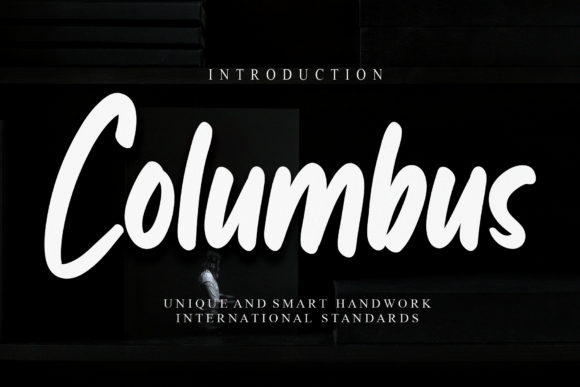
Introducing Columbus Font: The Ultimate Choice for Stunning Logos, Branding, and Quotes
Are you looking for a font that can add a touch of elegance and sophistication to your designs? Look no further than the Columbus Font. This lovely, cursive, and thick lettered handwritten font is the perfect choice for creating eye-catching logos, branding, and quotes that will leave a lasting impression on your audience.
The Unique Features of Columbus Font
What sets Columbus Font apart from other fonts is its unique and beautiful touch. Every letter has been carefully crafted to provide a distinctive and stylish look that will make your design come alive. The font’s cursive and thick lettered style gives it a luxurious and refined feel, making it perfect for high-end branding and designs.
The Benefits of Using Columbus Font
Using Columbus Font in your designs comes with a range of benefits. Here are just a few:
- Elegance and Sophistication: The Columbus Font adds a touch of elegance and sophistication to any design, making it perfect for high-end branding and luxury products.
- Unique and Memorable: The font’s unique and beautiful touch ensures that your design will stand out from the crowd and be remembered by your audience.
- Versatile: The Columbus Font is versatile and can be used for a range of designs, from logos and branding to quotes and social media graphics.
- Easy to Read: Despite its cursive style, the Columbus Font is easy to read, making it perfect for use in body text as well as headings.
How to Use Columbus Font in Your Designs
Using the Columbus Font in your designs is easy. Here are a few tips to get you started:
- Logos and Branding: Use the Columbus Font to create stunning logos and branding materials that will set your business apart from the competition.
- Quotes and Social Media Graphics: The font’s cursive style makes it perfect for use in quotes and social media graphics, adding a touch of elegance and sophistication to your online presence.
- Headings and Titles: Use the Columbus Font to add a touch of luxury and refinement to your headings and titles, making them stand out from the rest of your content.
Why Choose Columbus Font?
With so many fonts to choose from, why should you choose Columbus Font? Here are just a few reasons:
- High-Quality Design: The Columbus Font has been carefully crafted to provide a high-quality design that will enhance your designs and make them stand out.
- Unique and Exclusive: The font’s unique and beautiful touch ensures that your design will be exclusive and not easily replicable with other fonts.
Columbus Font: The Perfect Choice for Designers
Whether you’re a professional designer or just starting out, the Columbus Font is the perfect choice for your designs. Here are just a few reasons why:
- Professional Results: The Columbus Font provides professional results that will enhance your designs and make them look high-end.
- Time-Saving: The font’s ease of use saves you time and effort, allowing you to focus on other aspects of your design.
- Inspiration and Creativity: The Columbus Font’s unique and beautiful touch provides inspiration and creativity for your designs, helping you to think outside the box and come up with innovative ideas.
In conclusion, the Columbus Font is a stunning, cursive, and thick lettered handwritten font that is perfect for creating eye-catching logos, branding, and quotes. Its unique and beautiful touch ensures that your design will stand out from the crowd and be remembered by your audience. With its ease of use, high-quality design, and versatility, the Columbus Font is the perfect choice for designers of all levels.
Get Ready to Elevate Your Designs with Columbus Font